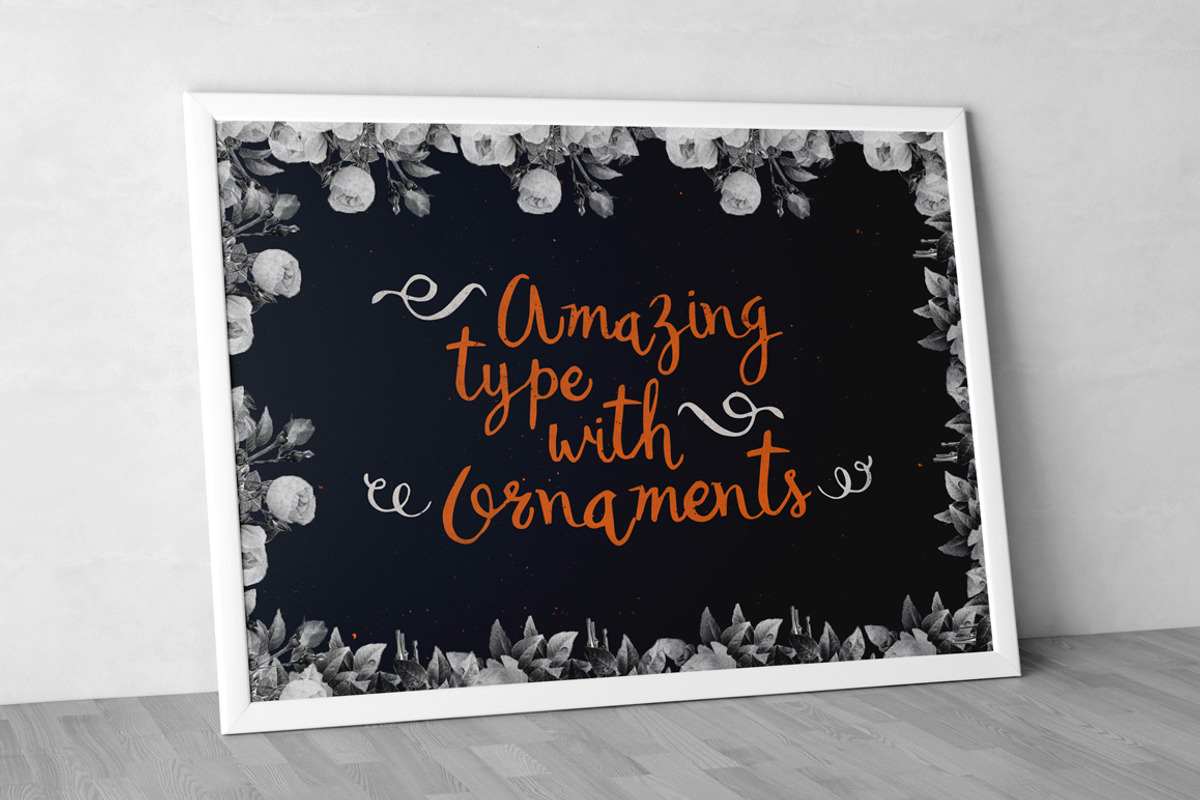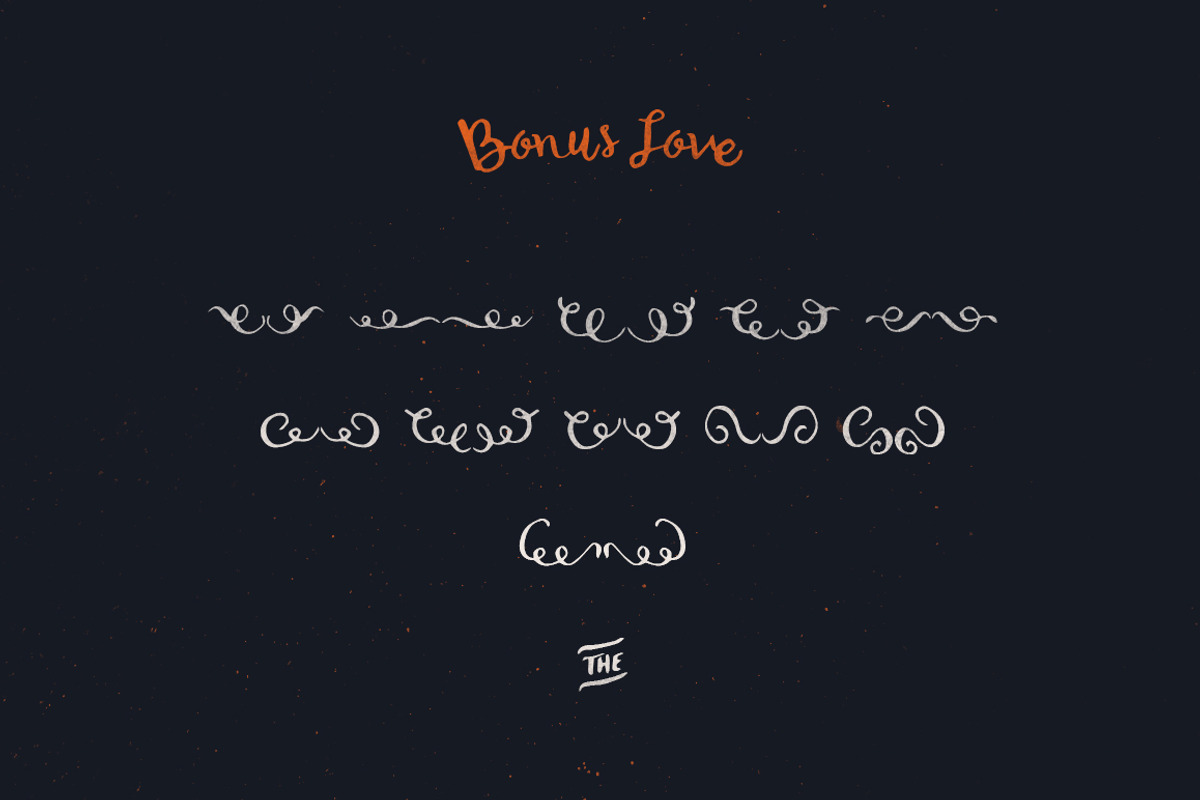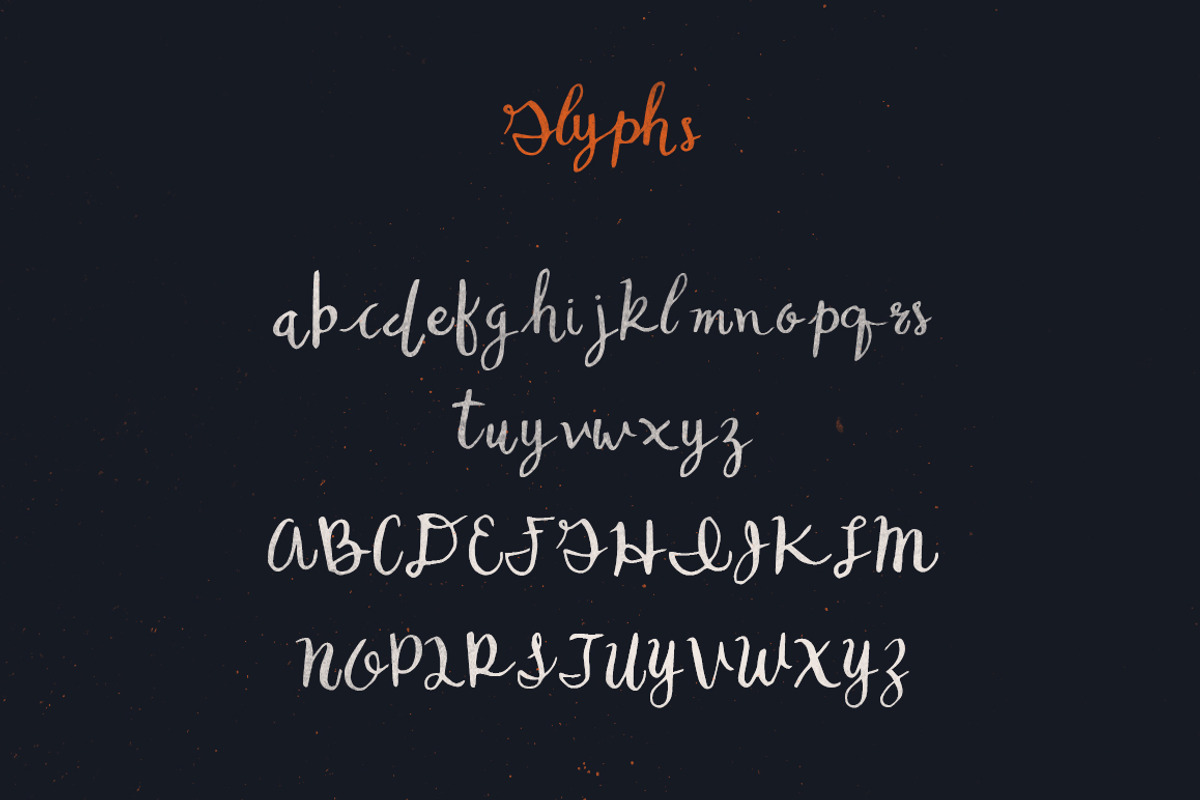
Dakota Font + Bonus
Dakota Font + Bonus by Noe Araujo is a font selected for branding, posters, packaging, typography.
- Bonus Ornaments in the font
Why Dakota Font + Bonus is worth a look
Dakota Font + Bonus by Noe Araujo fits naturally into Branding, posters, packaging, typography.